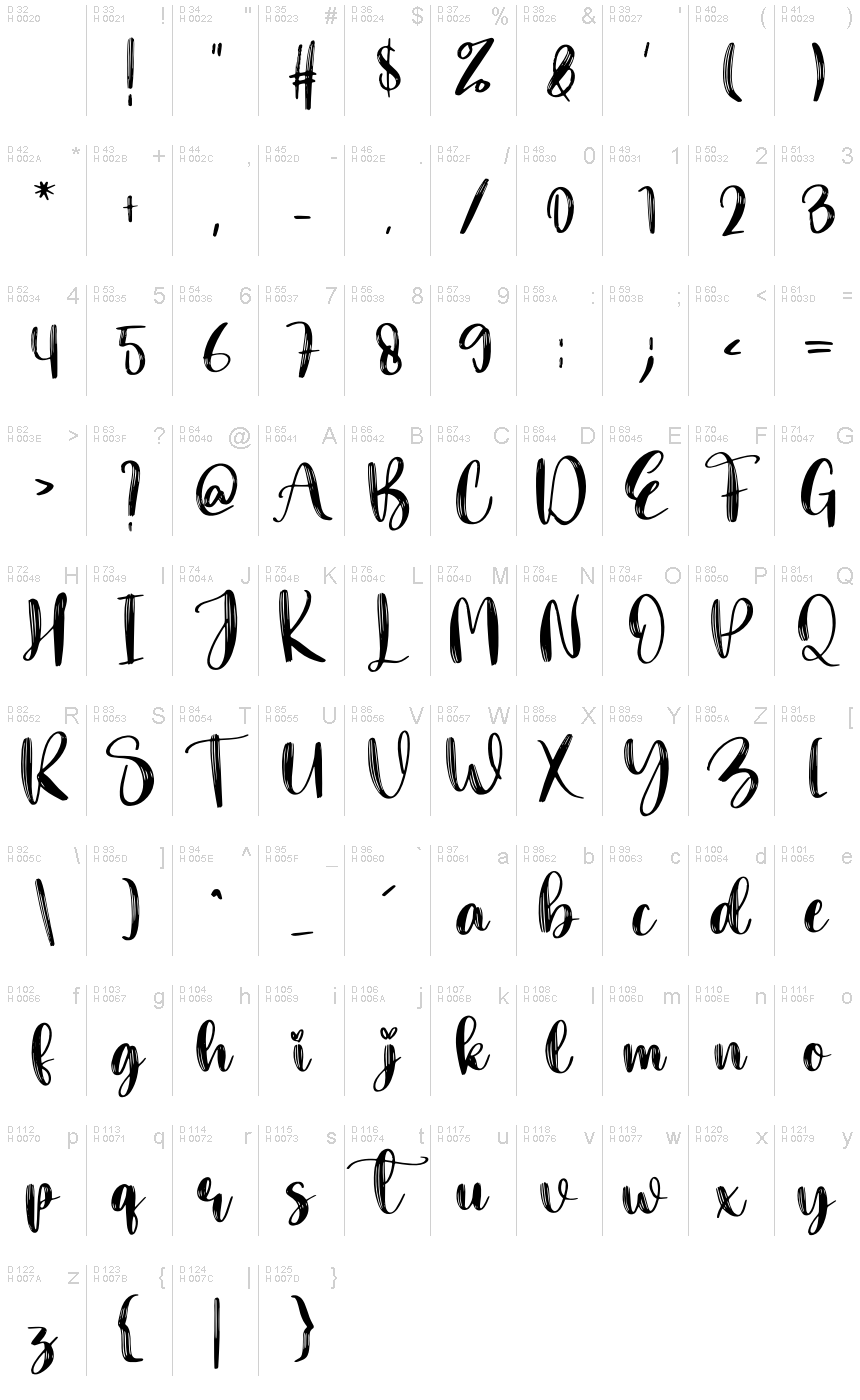
Hand Made
Captivating and dynamic, the Hand Made font by Scratchones exudes a bold, brush-inspired charm. This expressive typeface seamlessly blends organic, handcrafted aesthetics with a refined, contemporary flair. The fluid, unrestrained strokes convey a sense of artistry and individuality, making each letter appear as a unique, hand-painted masterpiece. The font's bold weight and distinct character lend themselves to commanding attention, evoking a sense of artistry and authenticity.
The Hand Made font's versatility shines through its ability to elevate a wide range of design projects. From eye-catching headlines and impactful logos to rustic branding and dynamic packaging, this font effortlessly adapts to diverse creative applications. Its bold, brush-inspired personality adds a touch of character and personality to any design, making it an ideal choice for those seeking to inject a dose of handcrafted charm into their visuals.